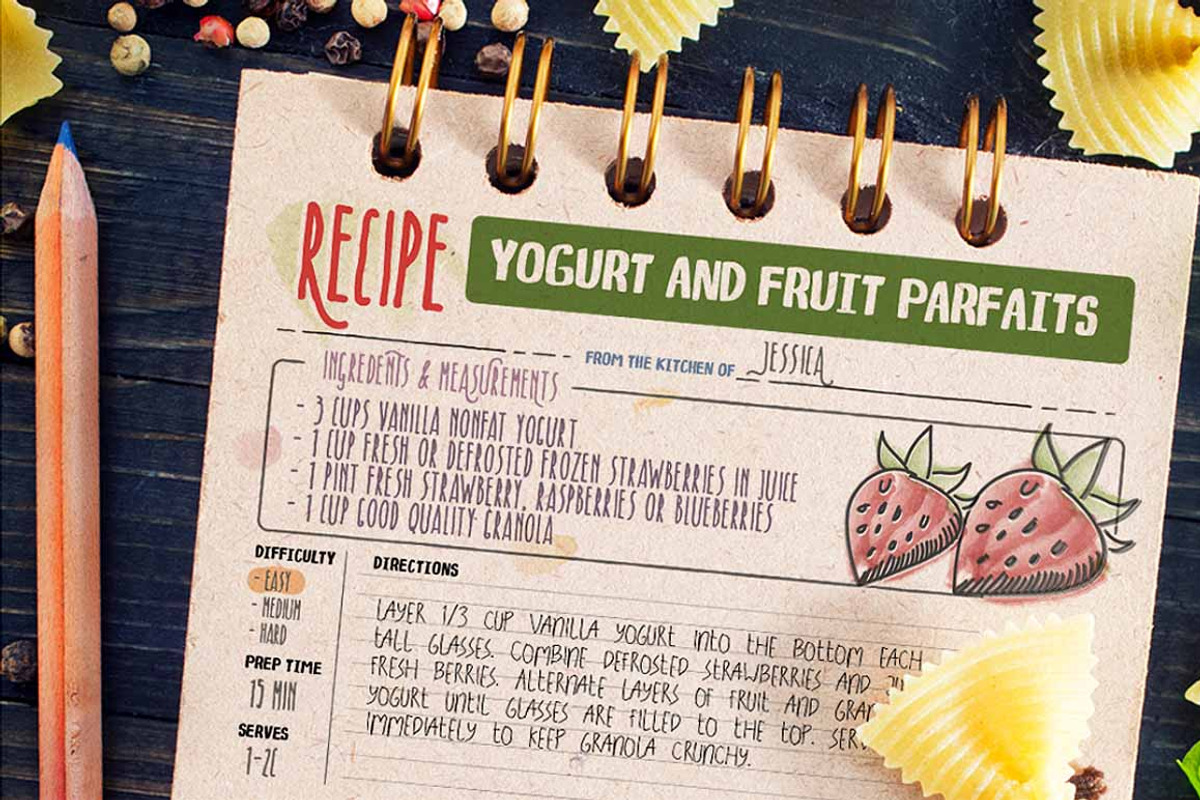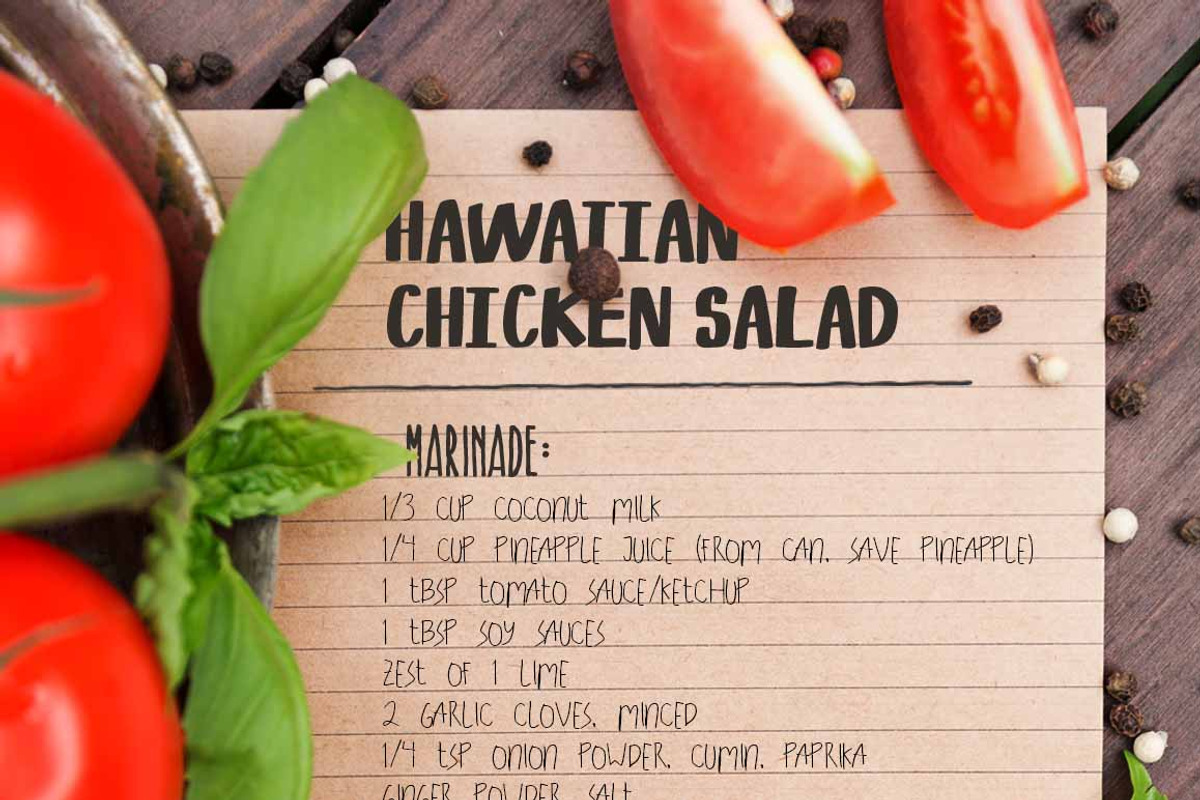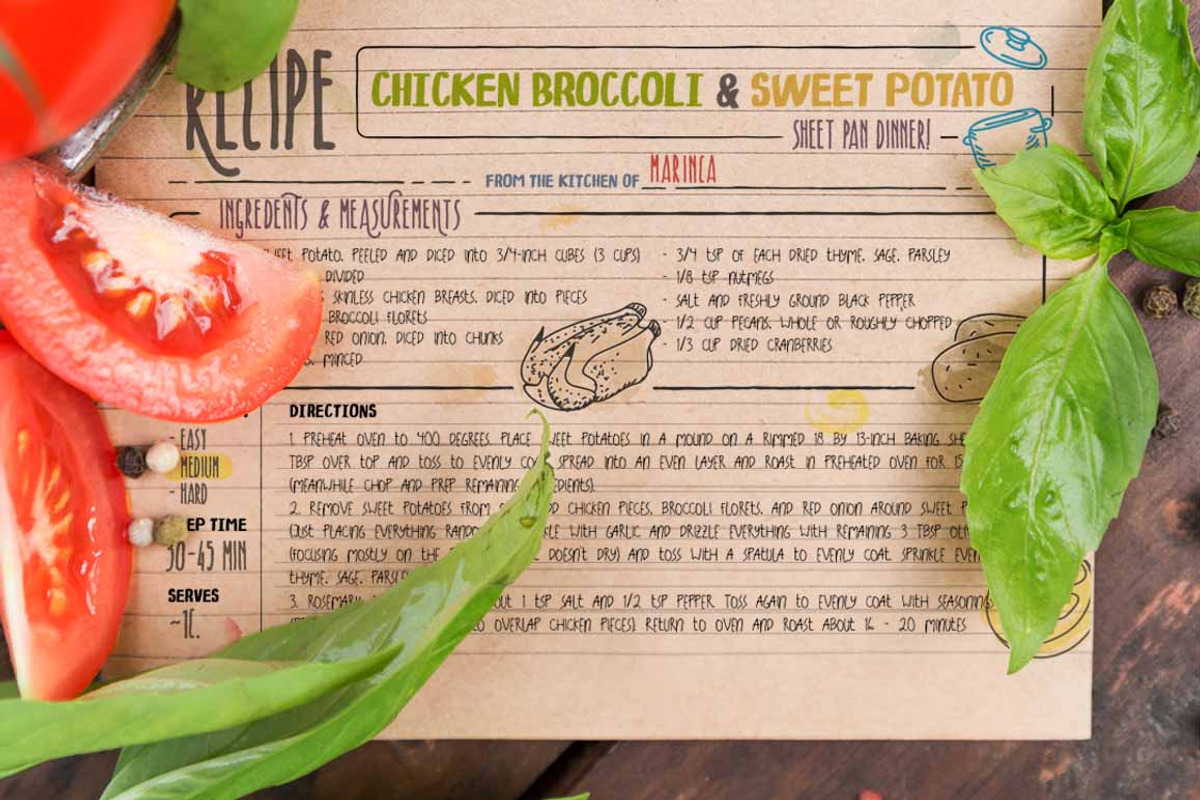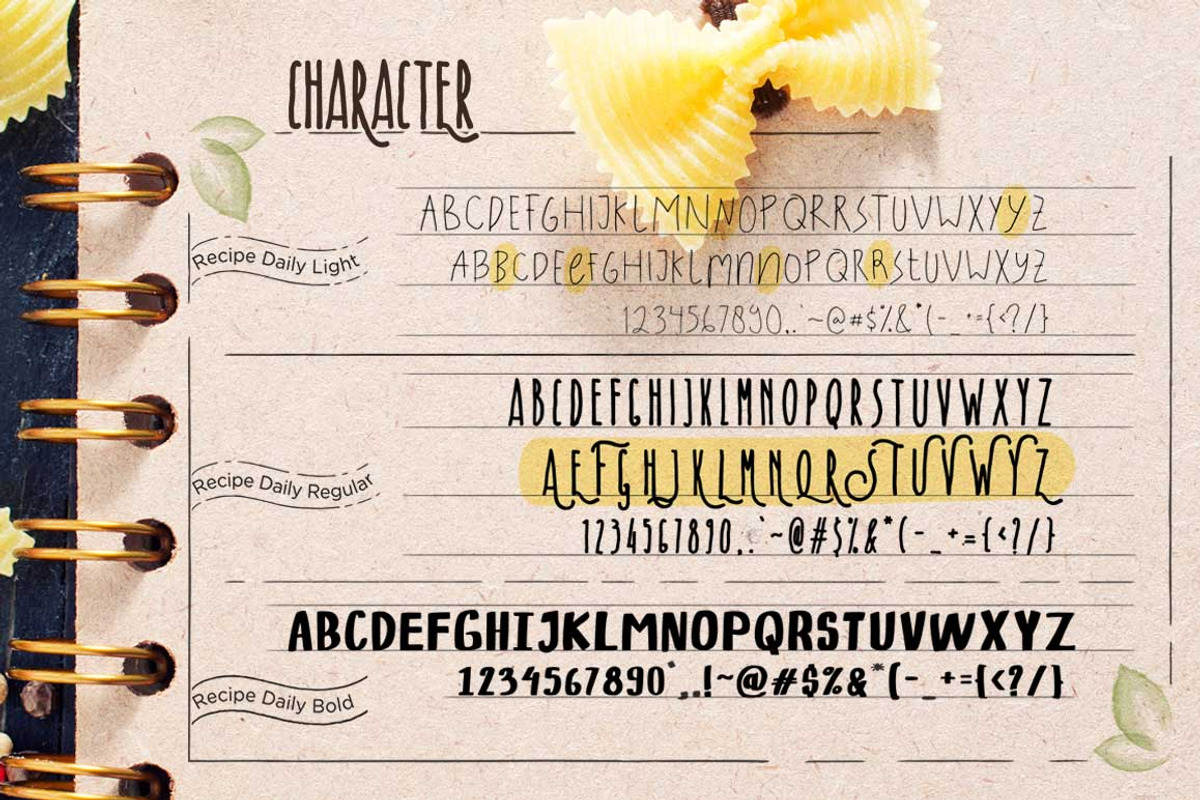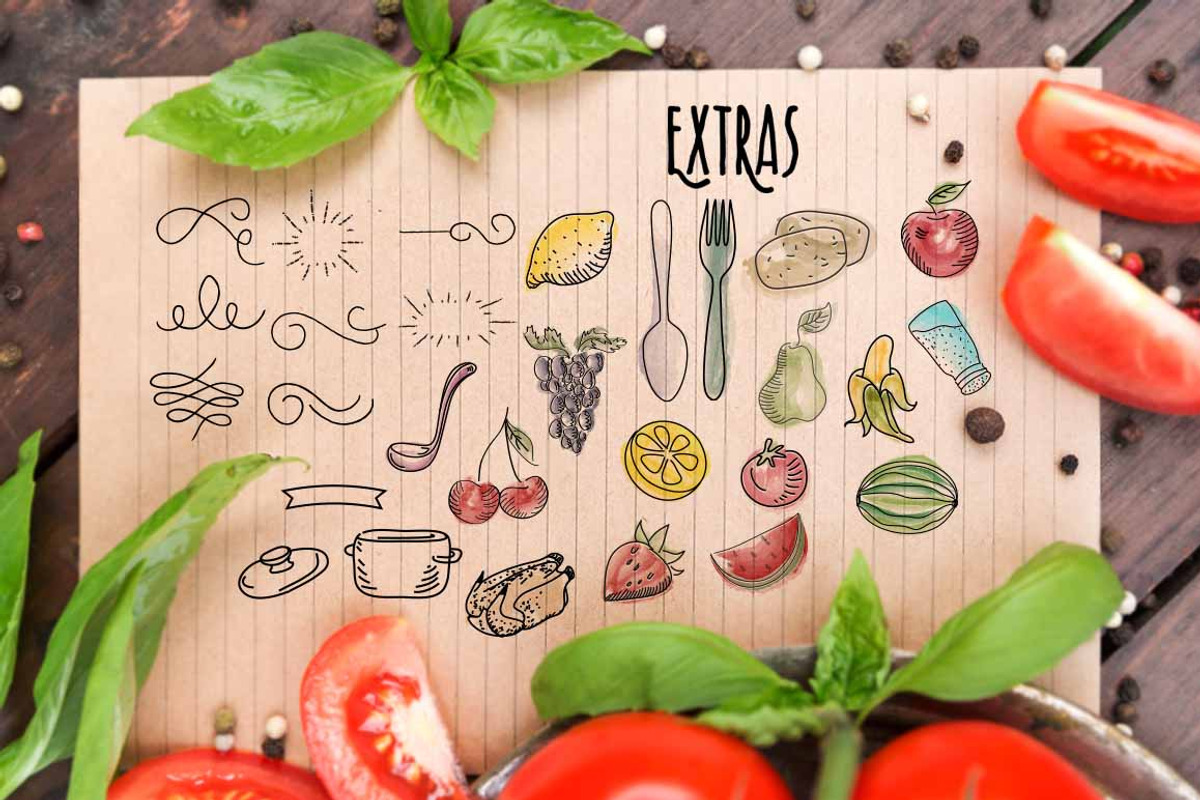
Recipe Daily Typeface
Recipe Daily Typeface by StoricType is a font selected for branding, posters, packaging, typography.
- Recipe Daily LIGHT
- Recipe Daily Regular
- Recipe Daily BOLD
Why Recipe Daily Typeface is worth a look
Recipe Daily Typeface by StoricType fits naturally into Branding, posters, packaging, typography.